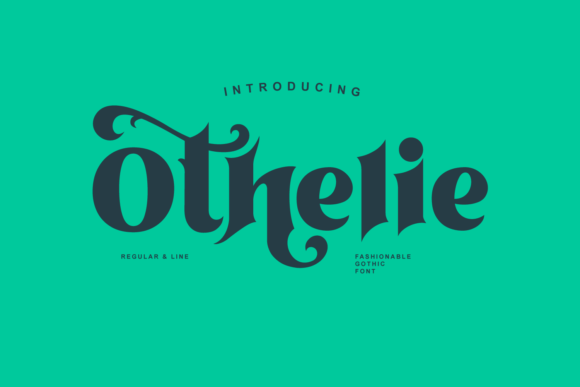
Introducing Othelie - The Gothic Font That Will Unleash Your Creativity
In the realm of typography, Othelie stands as a striking display font, a masterpiece conjured by the skilled hands at Creativemedialab. Its Gothic lineage imbues it with an air of mystery and intrigue, inviting you to embark on a journey through time. With Othelie as your faithful companion, your crafting endeavors will transcend the ordinary - prepare to witness the birth of captivating designs that leave an indelible mark on the hearts of your audience.
Unleash the Dark Elegance Within
With its sharp edges and intricate details, Othelie possesses an undeniable charm that will transform your creative projects. It effortlessly weaves a tapestry of sophistication and allure, adding a touch of the extraordinary to your designs. Let your imagination run wild as you explore the boundless possibilities that await you with this captivating font.
A Font for All Seasons
Othelie's versatility knows no bounds. It seamlessly adapts to a plethora of projects, from eye-catching logos and posters to enchanting invitations and social media graphics. Envision the impact it will make on your branding materials, leaving a lasting impression that sets you apart from the ordinary. With Othelie as your trusted ally, your creativity will soar to new heights.
Step Into the Spotlight
With Othelie gracing your designs, you'll captivate your audience, commanding attention wherever your creations venture. It possesses an inherent ability to draw the eye, inviting viewers to delve deeper into the world you've meticulously crafted. Prepare to witness a surge in engagement as your designs take center stage, leaving a lasting impression that lingers long after the final scroll.
Crafting Dreams with Othelie
Othelie is more than just a font; it's an invitation to unleash your artistic potential. It empowers you to weave tales through visual artistry, leaving your audience spellbound. Whether you're a seasoned designer or just starting your creative journey, Othelie will become your trusted companion, guiding you towards crafting designs that evoke emotion and leave an unforgettable mark.